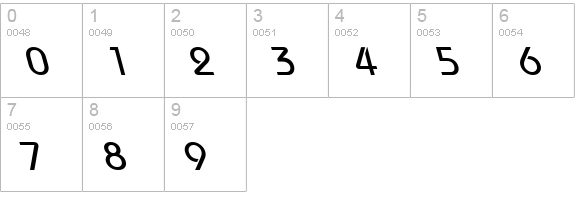
BordeauxBackslant Regular Font Details
BordeauxBackslant Regular is the standard, neutral variant in the BordeauxBackslant typeface family \xE2\x80\x94 well suited to general body text, paragraphs, and standard typographic work.
BordeauxBackslant Regular font is a stylish and elegant typeface that exudes sophistication and charm. With its unique slanted design and delicate curves, this font is perfect for adding a touch of class to any project. Whether you're creating wedding invitations, branding materials, or social media posts, BordeauxBackslant Regular will make your text stand out. This font is versatile and can be used for both headings and body text, making it a great choice for various design needs. Its timeless appeal and classic look ensure that your text will always make a statement. Best of all, BordeauxBackslant Regular font is completely free to download at FontsMarket.com. So why wait? Add this gorgeous font to your collection today and elevate your designs to the next level.